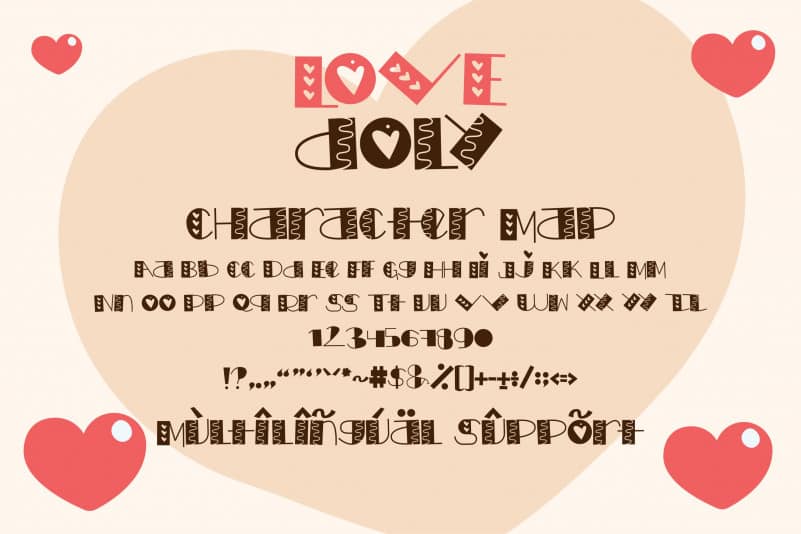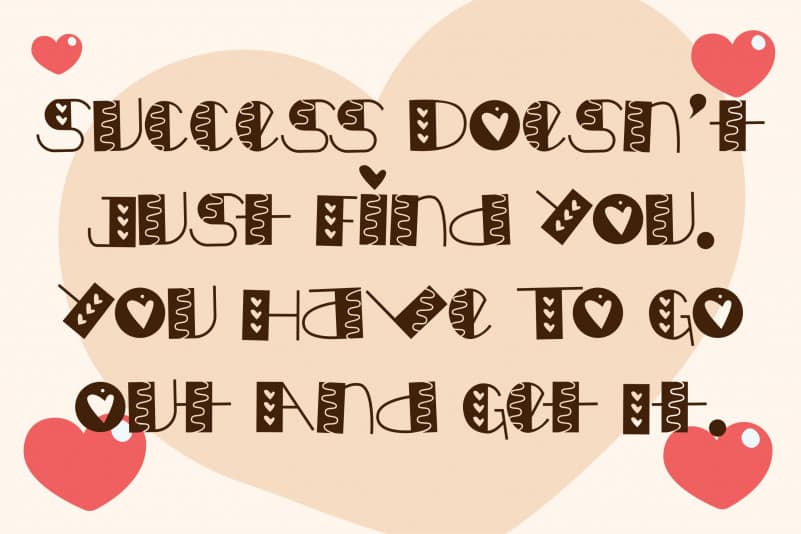
Love Doly Display Font
Love Doly Display Font is a quirky and incredibly unique display font. This enchanting font will turn any creative idea into a true standout.